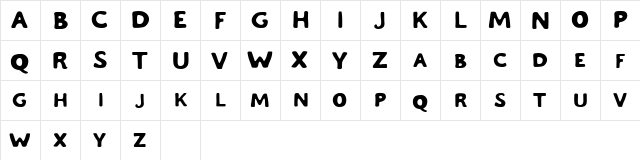
Chaos And Madness Free Regular
Design Context for Chaos And Madness Free Typeface
Chaos And Madness Free is a composed and adaptable typeface that performs quietly and consistently across a wide range of design contexts.